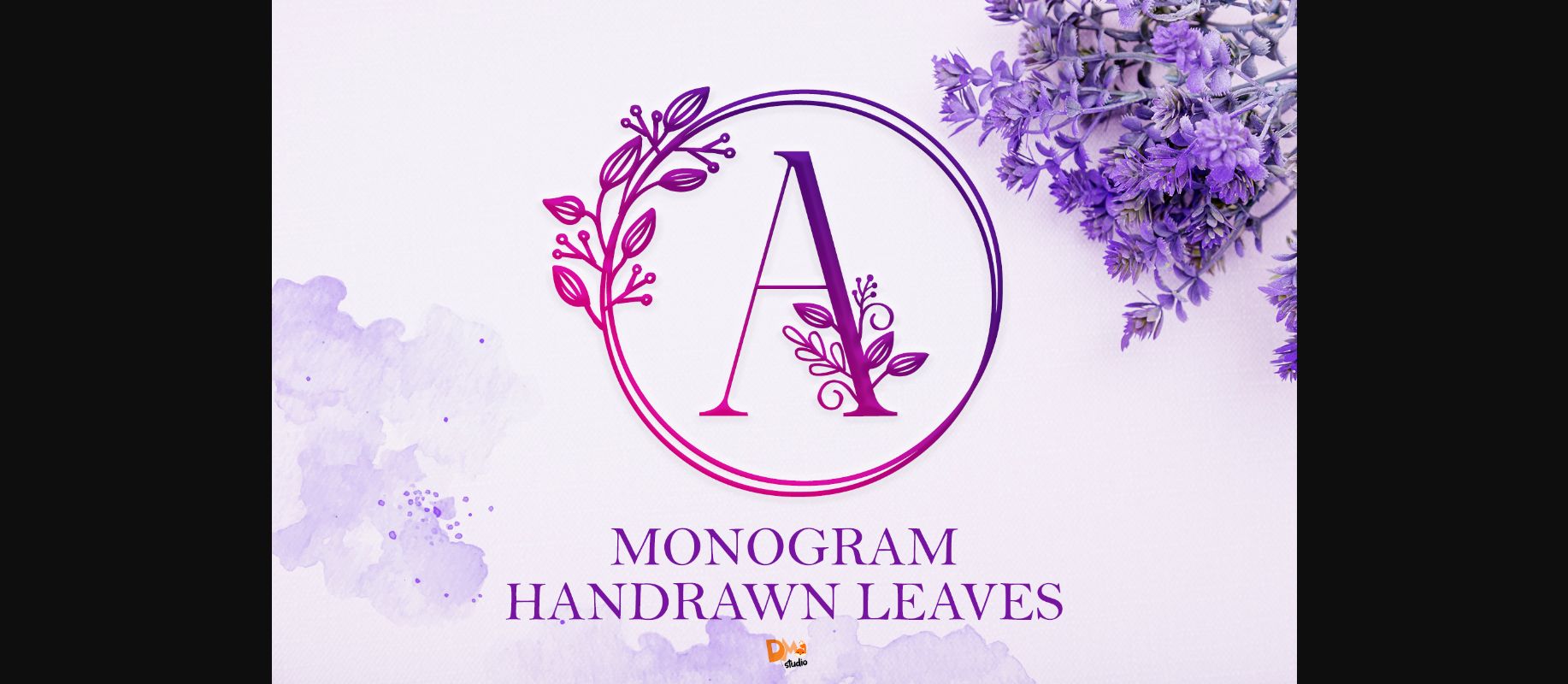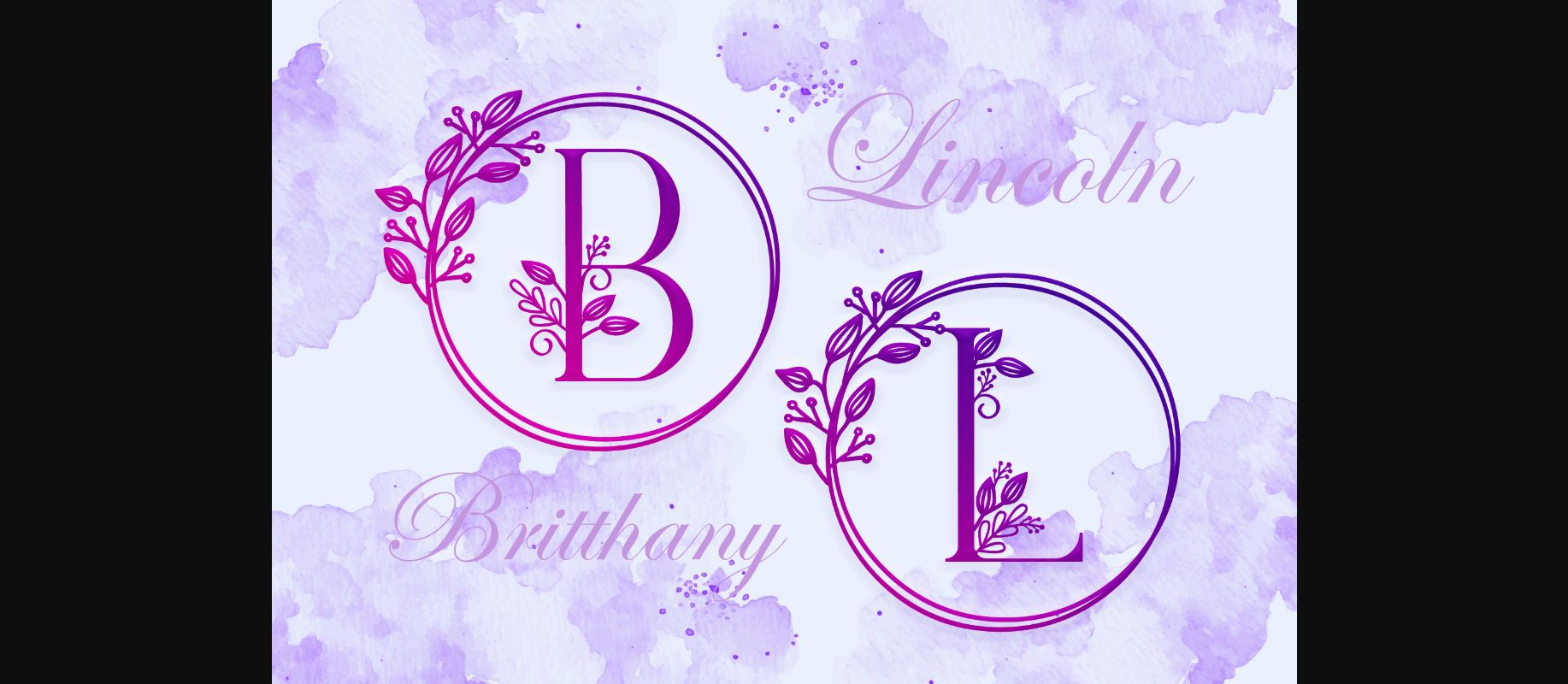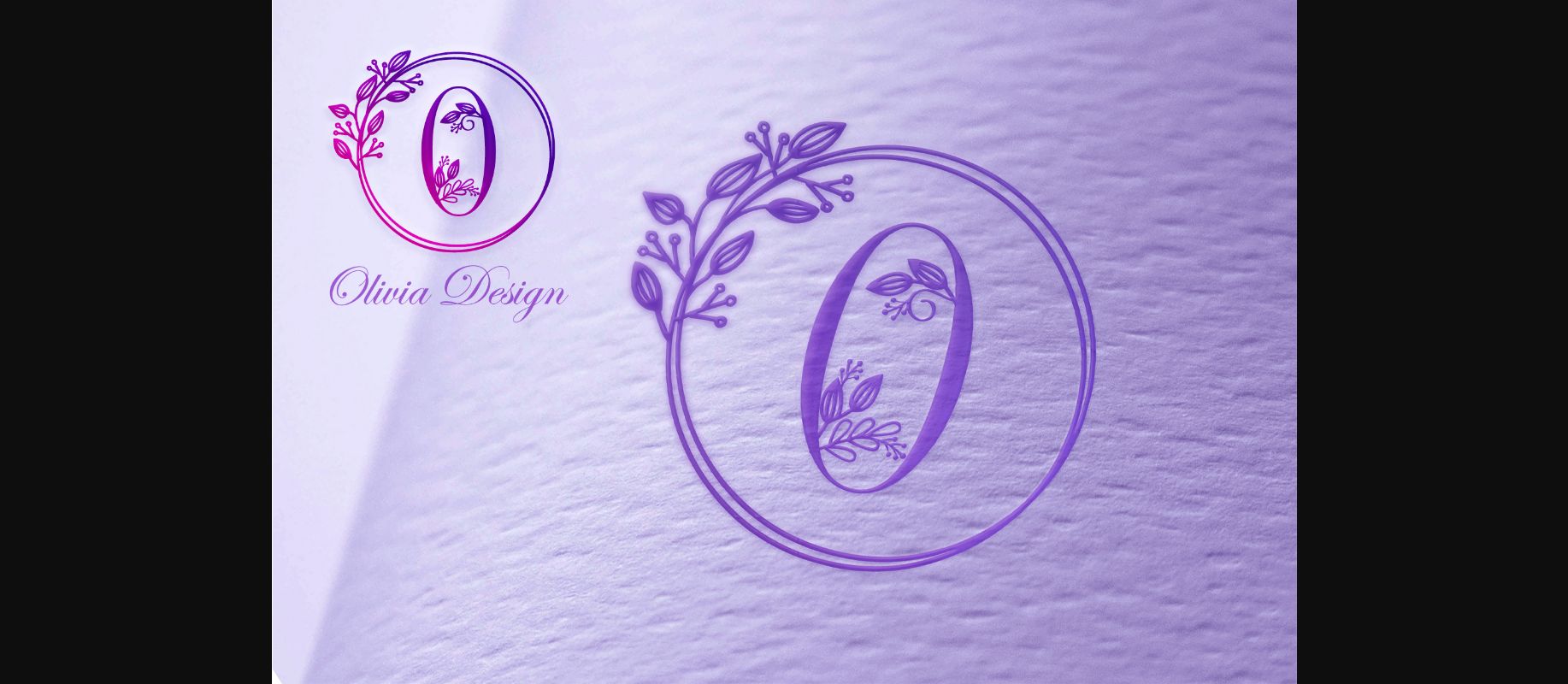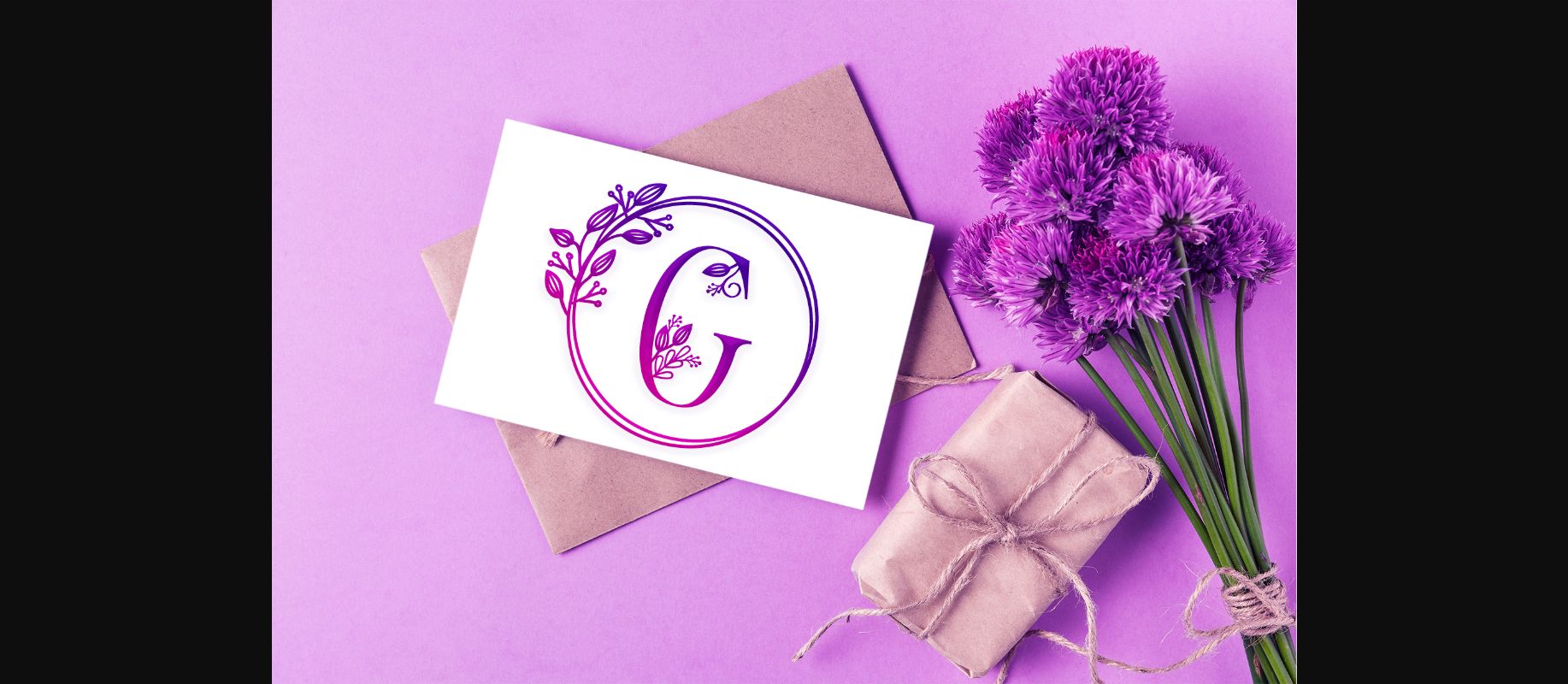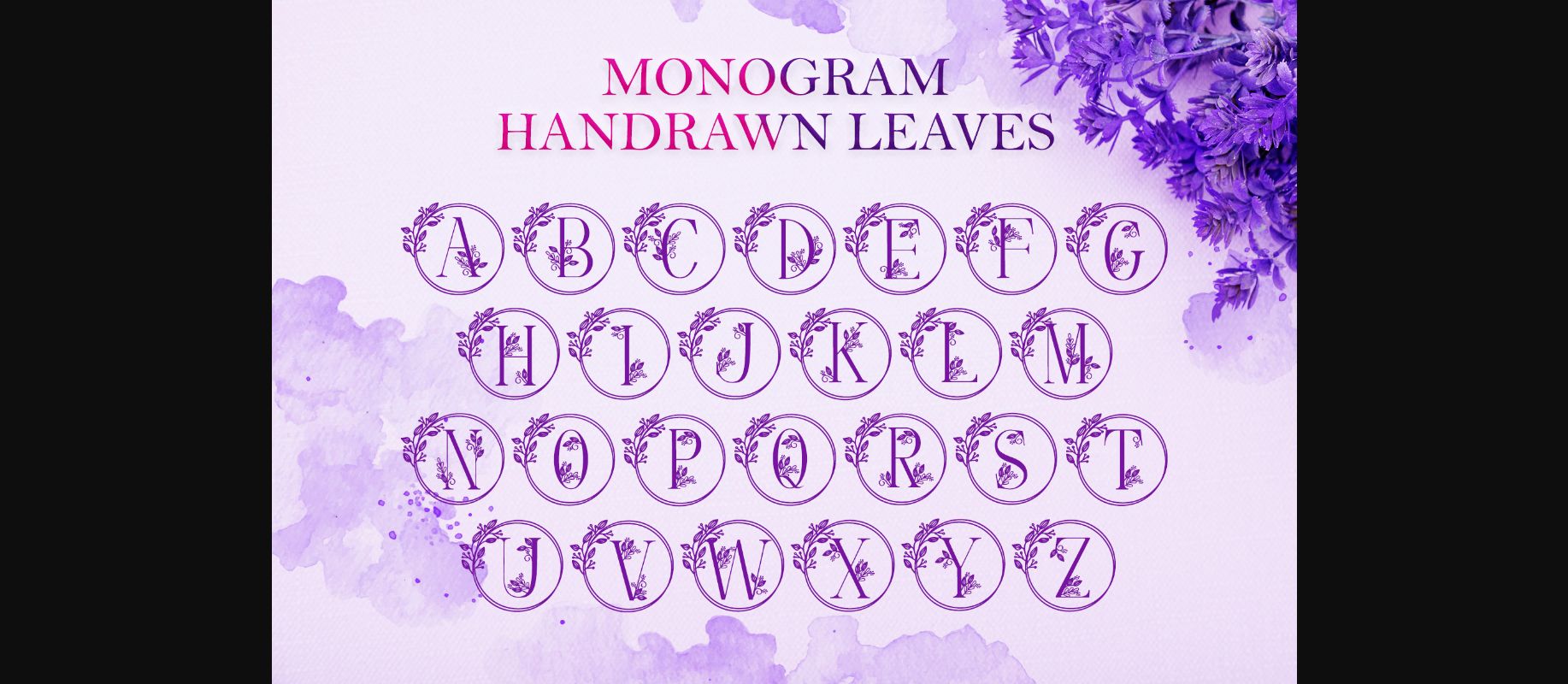
About Monogram Handrawn Leaves Font
Monogram Handrawn Leaves is a beautiful decorative font with a floral theme. Use it for any design projects that require a charming appearance!